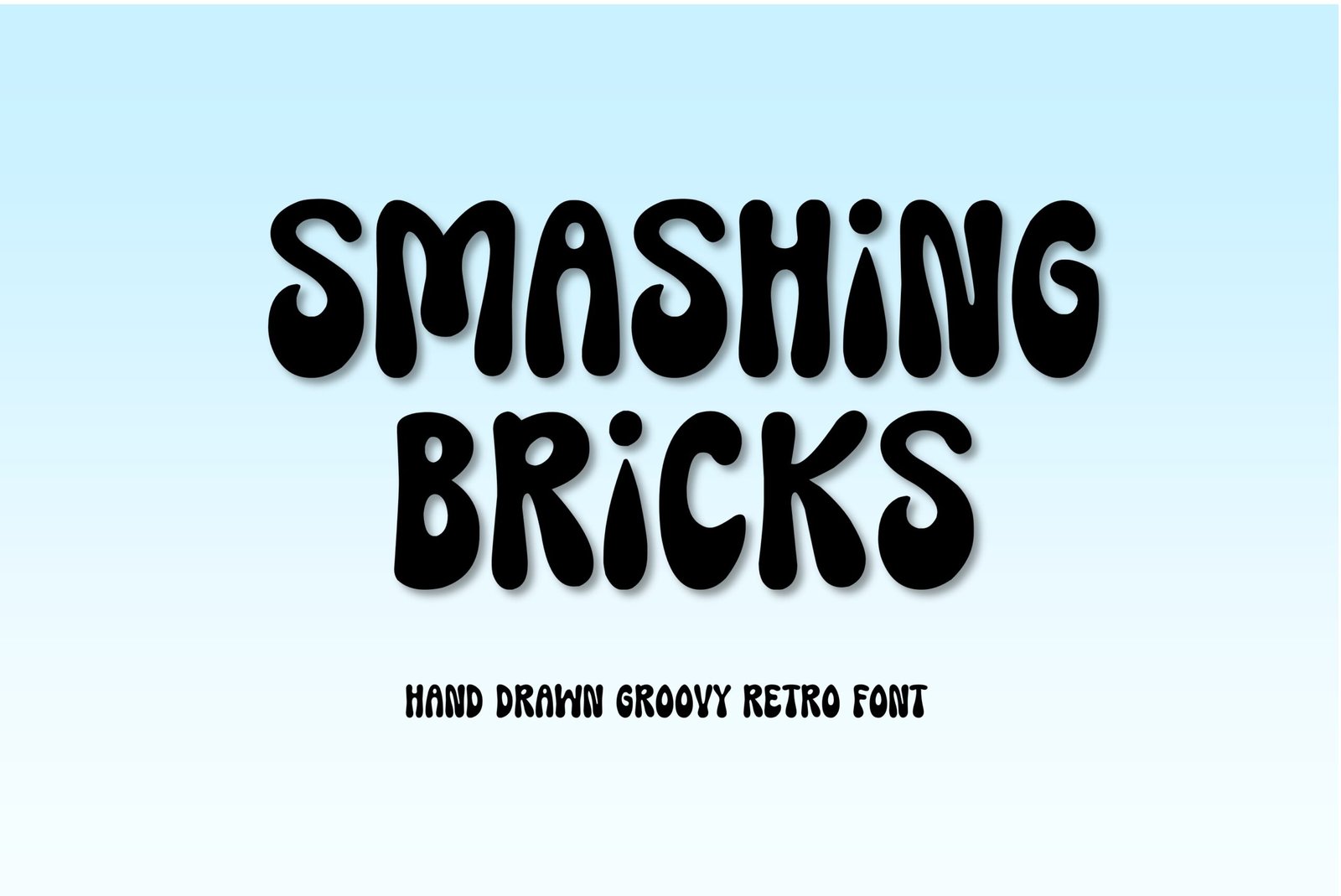
Smashing Bricks Font
Handwritten vintage retro font. “Smashing Bricks”. Perfect for advertising and display purposes, including banners, book covers, shirts, posters, logos and much more!
This is an ALL CAPS font.